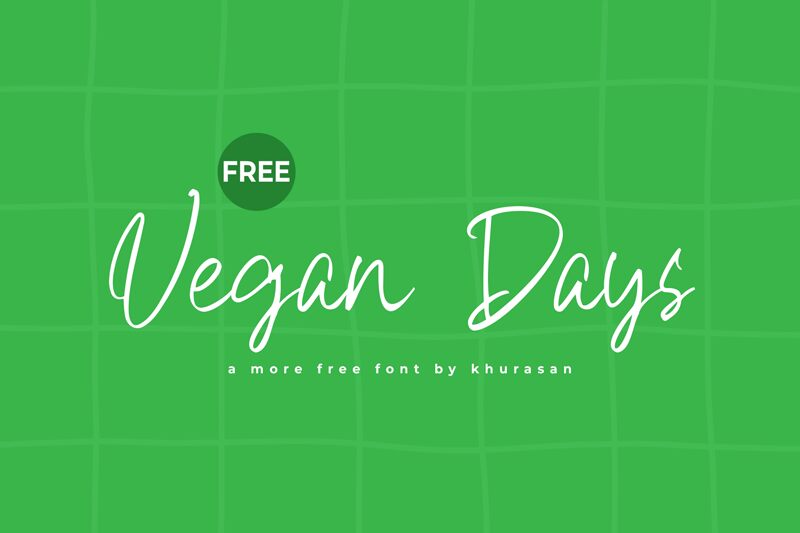
Vegan Days font by Khurasan is a free handwritten font family available in two font styles. Inspired by the beauty of elegant yet casual handwriting, this font is modern, natural, and relaxed with each character carrying a unique personality. It aims to establish clear communication between the designer and the reader in the most casual, yet intimate, manner.
Versatility is quite a useful feature here, allowing you to try it across a range of projects, including invitation cards, book covers, wrapping papers, quotes, stationery, logos, banners, packaging, postcards, letterheads, magazine reviews, labels & badges, and headlines.